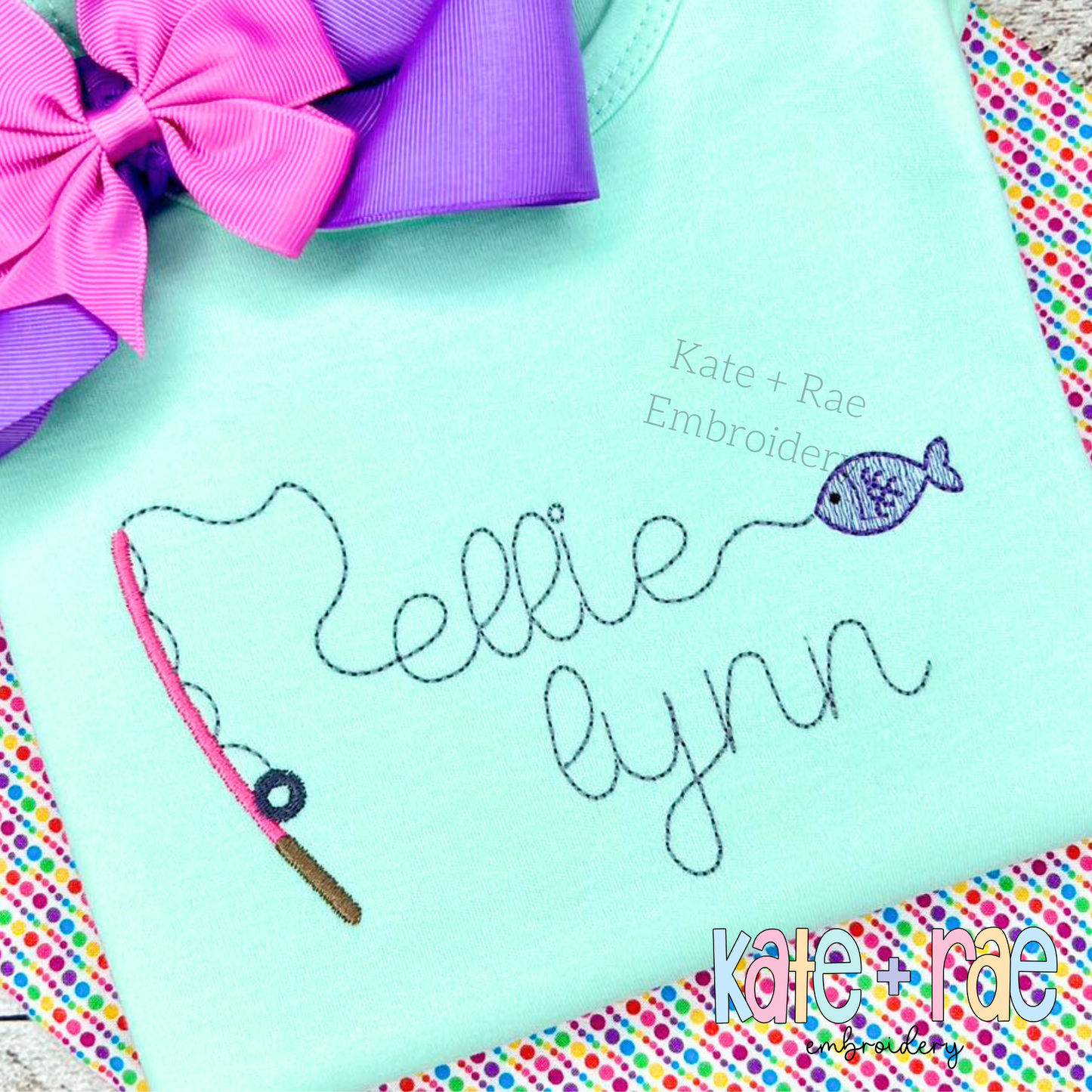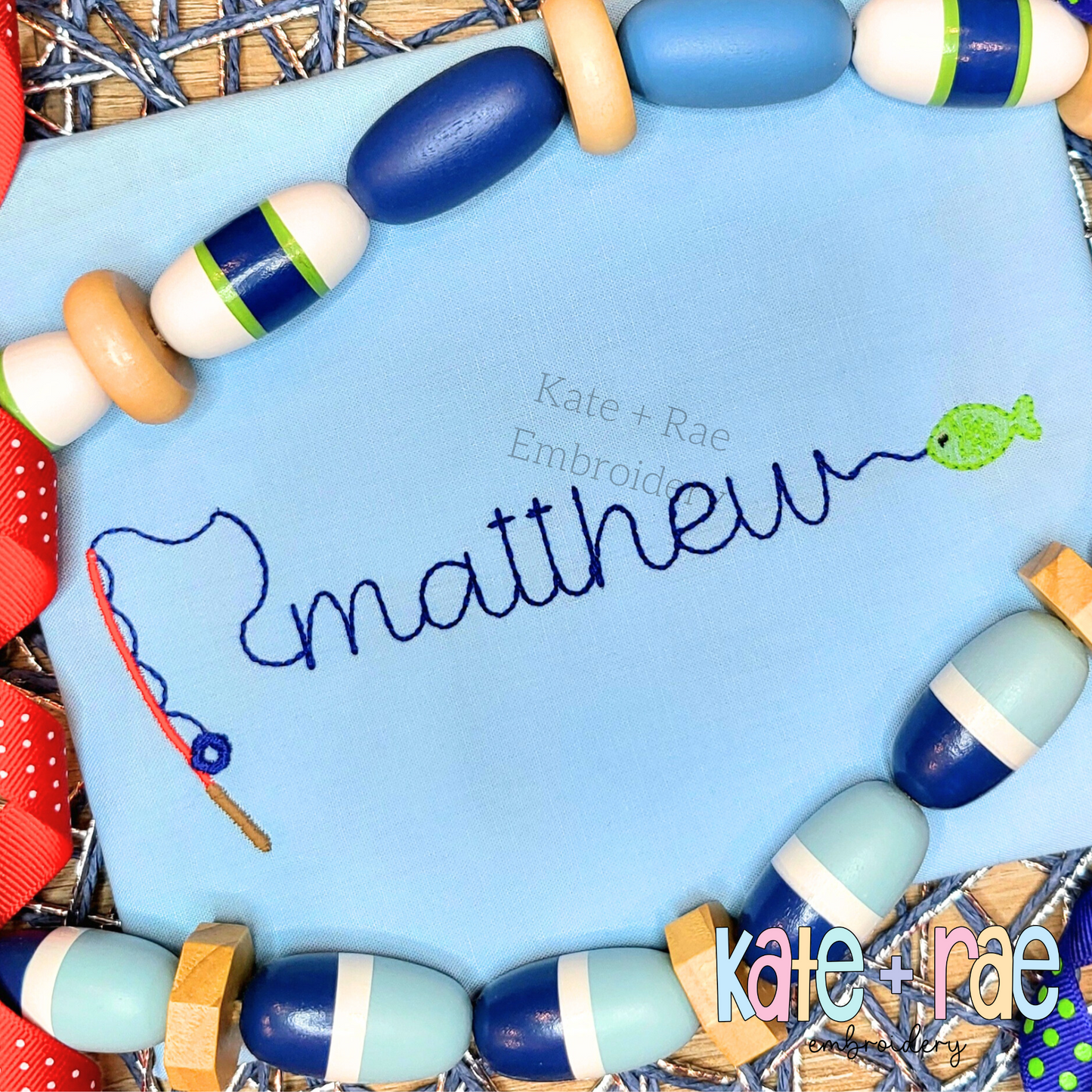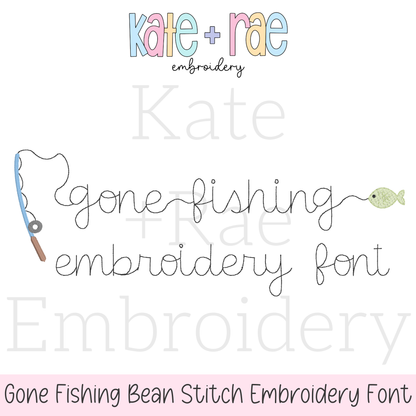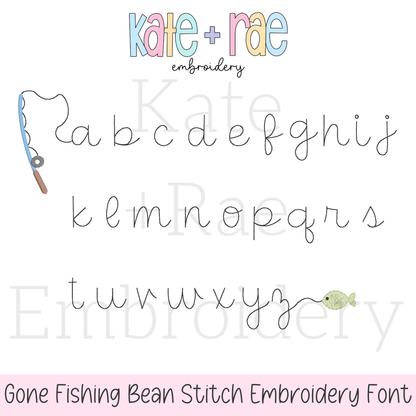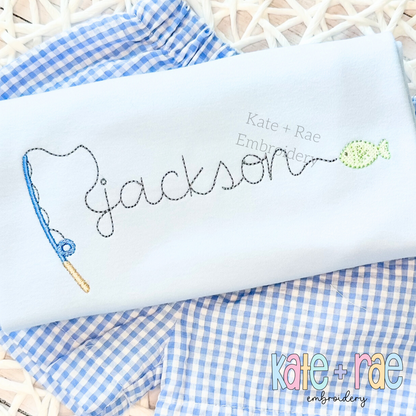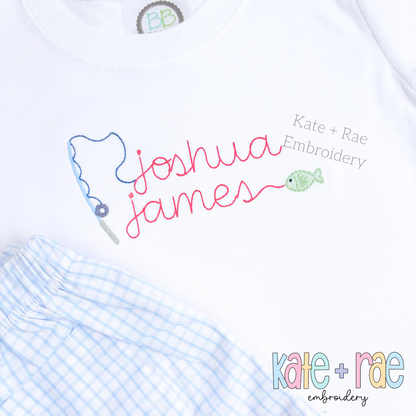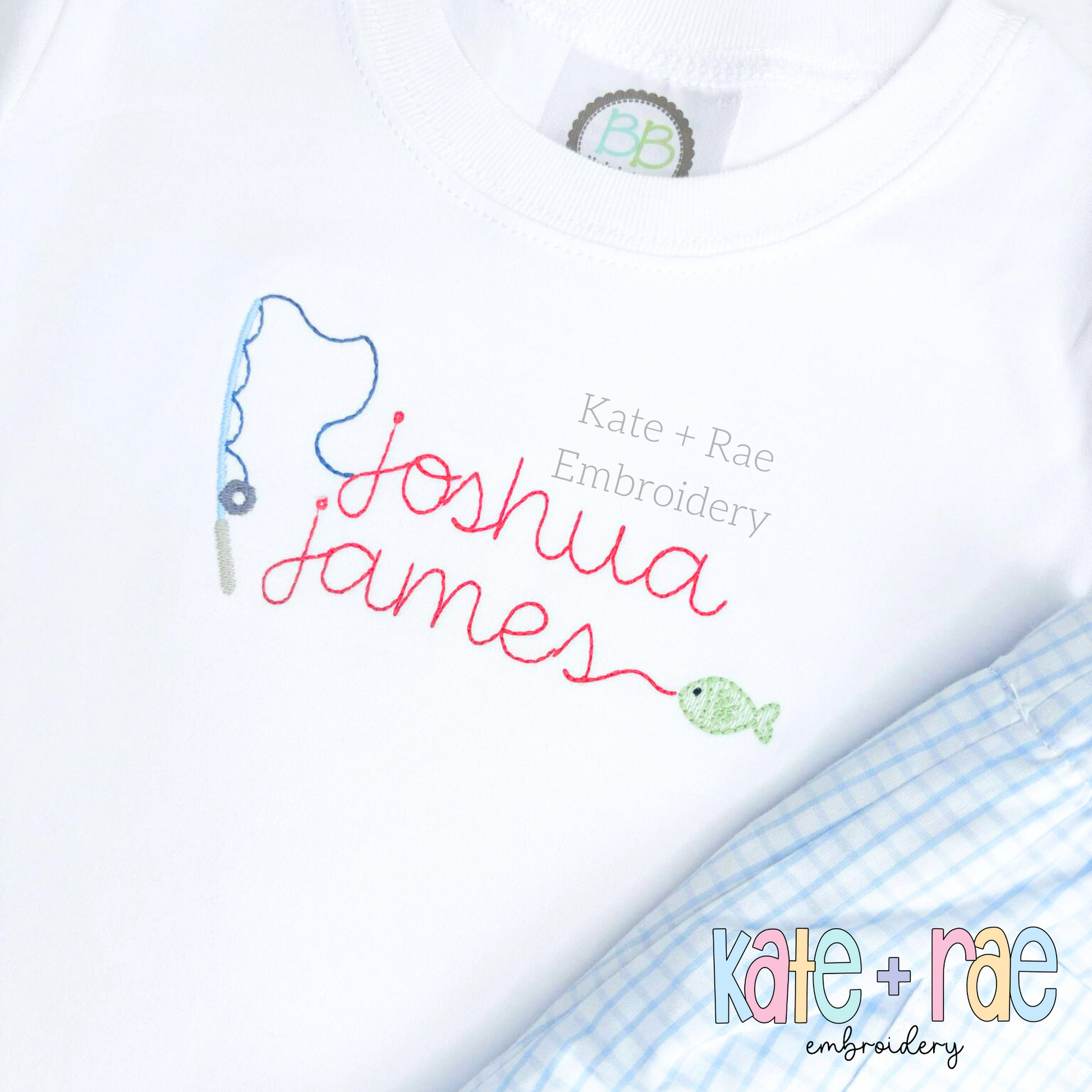
Gone Fishing Bean Stitch Font Embroidery Design
Reel in some fun with Gone Fishing, a bean stitch embroidery font! Personalize names on fishing shirts, lake outfits, and outdoorsy gifts.